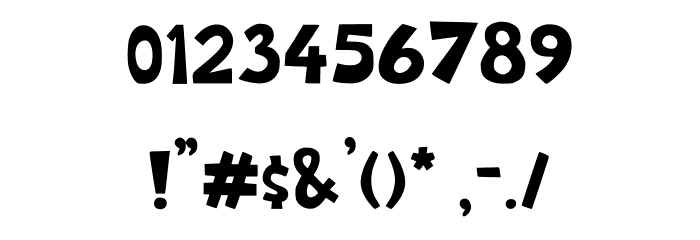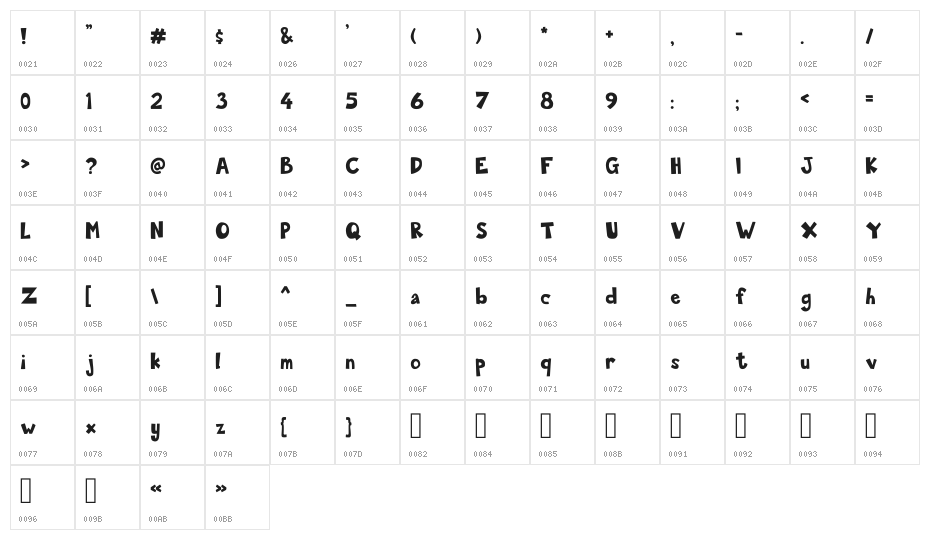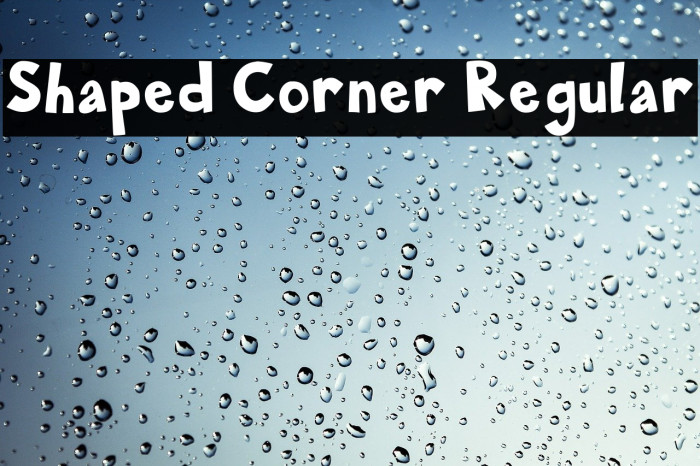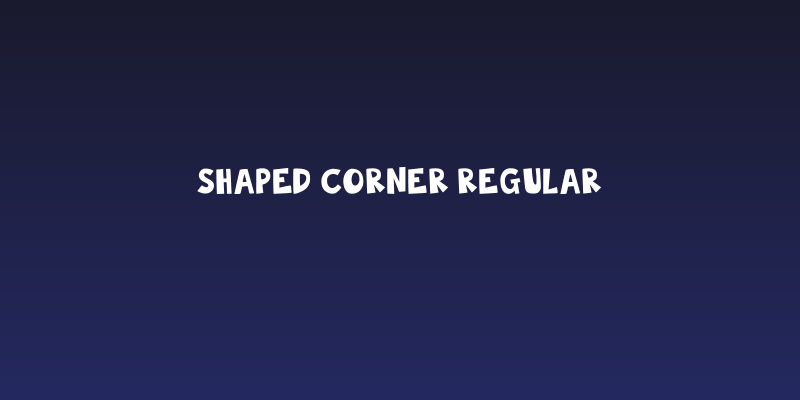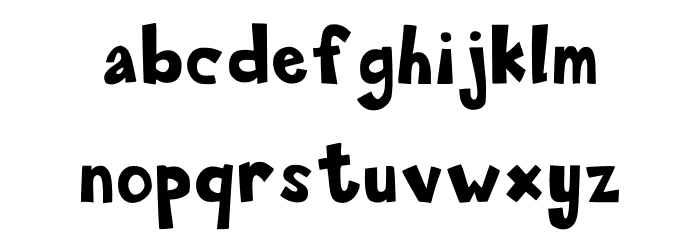
Shaped Corner Regular Font
Shaped Corner Regular Description
This font features a playful and bold design with rounded corners, giving it a friendly and approachable appearance. The characters are slightly irregular, adding a whimsical touch that enhances its charm. The uppercase letters are robust and prominent, while the lowercase letters maintain a consistent style, ensuring readability. Numbers and special characters follow the same playful theme, making them suitable for various creative applications. The overall design is modern yet retains a hint of retro flair, making it versatile for both contemporary and nostalgic projects.
| Overall Style | Modern, Retro |
| Proposed Projects | Ideal for children's books, playful branding, posters, and creative invitations. |